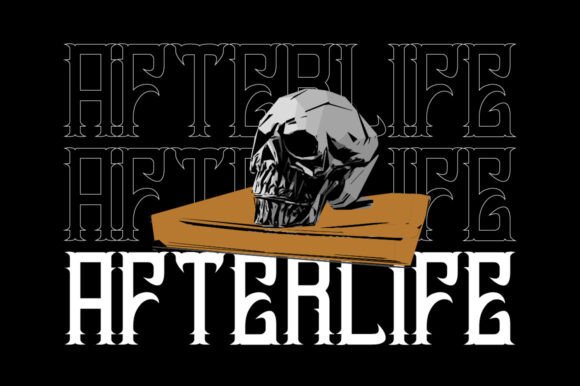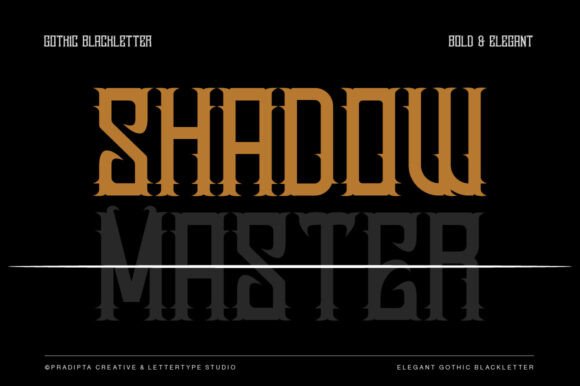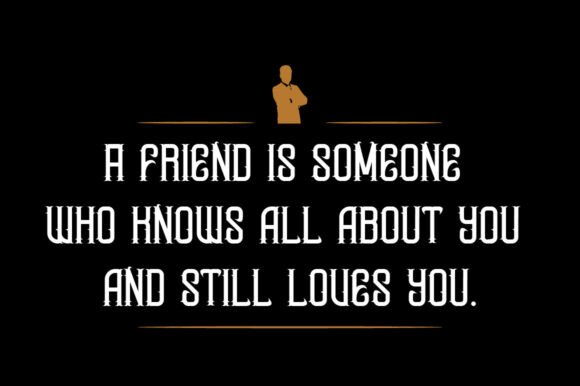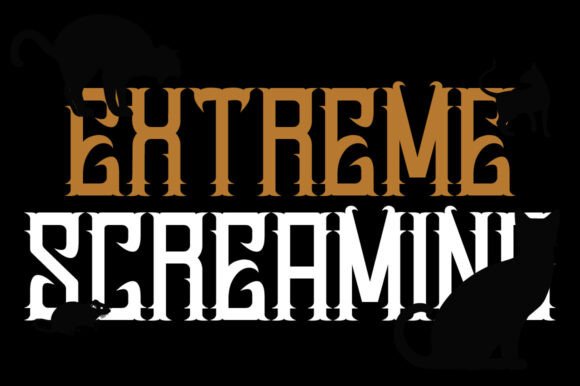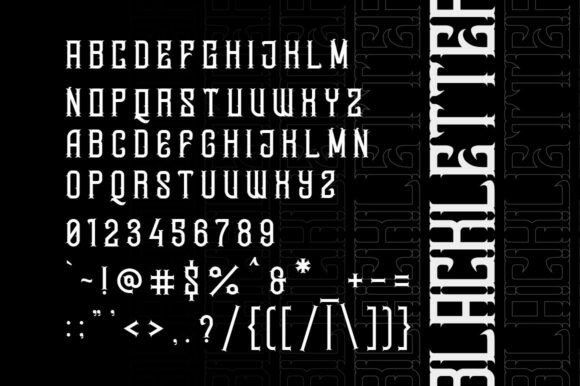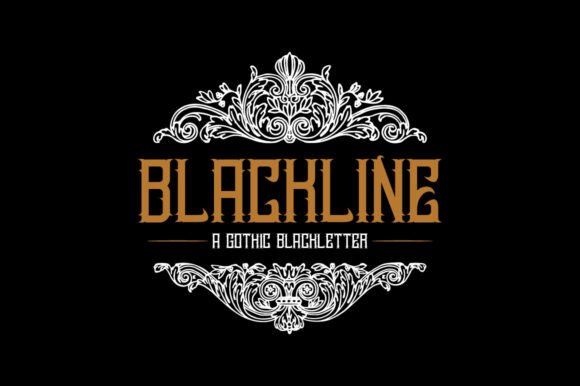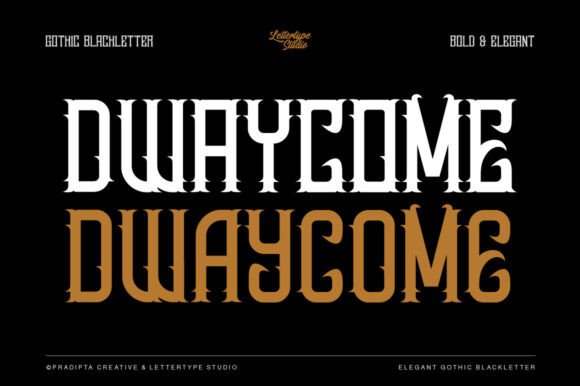
Dwaycome Font: Elevate Your Designs with Gothic Elegance
In the world of typography, few styles evoke the same level of mystery and sophistication as gothic blackletter fonts. Among these, the Dwaycome font stands out for its unique blend of historical heritage and bold, gothic elegance. This versatile typeface is perfect for designers and crafters looking to create impactful designs that stand out from the crowd. In this article, we’ll explore the characteristics, uses, and benefits of the Dwaycome font, and why it’s becoming a go-to choice for high-end design projects.
The Allure of Gothic Blackletter Fonts
Gothic blackletter fonts have a rich history, dating back to the Middle Ages. Characterized by their intricate, ornate letterforms and dramatic flourishes, these typefaces were originally used for illuminated manuscripts and other formal documents. Over time, they’ve evolved to incorporate clean and minimalist features, making them more versatile and legible. The result is a unique blend of vintage sophistication and modern elegance.
Introducing Dwaycome Font
Dwaycome is a gothic blackletter font that embodies the perfect balance of historical heritage and contemporary style. Its bold, dramatic letterforms are intricately designed, with sweeping flourishes and ornate details that evoke a sense of mystery and luxury. At the same time, the font’s clean lines and minimalist features ensure that it remains highly legible, even at smaller sizes.
Uses for Dwaycome Font
The versatility of Dwaycome font makes it suitable for a wide range of design applications. Here are some of the ways you can use this stunning typeface:
- Logo Design: Create a lasting impression with a bold, gothic logo that showcases your brand’s personality and values.
- Branding: Use Dwaycome font to add a touch of sophistication and elegance to your brand’s visual identity.
- Advertising: Grab attention with eye-catching ads that feature the dramatic, ornate letterforms of Dwaycome font.
- Gothic Design: Perfect for designers who specialize in gothic design, Dwaycome font is a great addition to any project.
- Animation and Movies: Add a touch of drama and mystery to your animation or movie projects with Dwaycome font.
- Posters and Quotes: Create stunning posters and quotes that feature the bold, gothic letterforms of Dwaycome font.
- Book and Cover Titles: Use Dwaycome font to add a touch of elegance and sophistication to your book titles and covers.
- Editorial Design: Elevate your editorial designs with the unique flair of Dwaycome font.
- Websites and Blogs: Add a touch of gothic elegance to your website or blog with Dwaycome font.
- Custom Products: Use Dwaycome font to create custom products such as mugs, pillows, t-shirts, and more.
Benefits of Using Dwaycome Font
So why choose Dwaycome font for your next design project? Here are some benefits of using this stunning typeface:
- Unique Flair: Dwaycome font offers a unique blend of historical heritage and modern elegance, making it perfect for designers looking to stand out from the crowd.
- Versatility: With its wide range of uses, Dwaycome font is a versatile typeface that can be used for various design applications.
- Legibility: Despite its ornate details, Dwaycome font remains highly legible, even at smaller sizes.
- Elegance: The font’s bold, gothic letterforms evoke a sense of luxury and sophistication, making it perfect for high-end design projects.
In conclusion, Dwaycome font is a stunning gothic blackletter typeface that offers a unique blend of historical heritage and modern elegance. With its versatility, legibility, and elegance, it’s perfect for designers and crafters looking to create impactful designs that stand out. Whether you’re working on a logo, branding, advertising, or editorial project, Dwaycome font is a great choice for adding a touch of gothic sophistication to your designs.